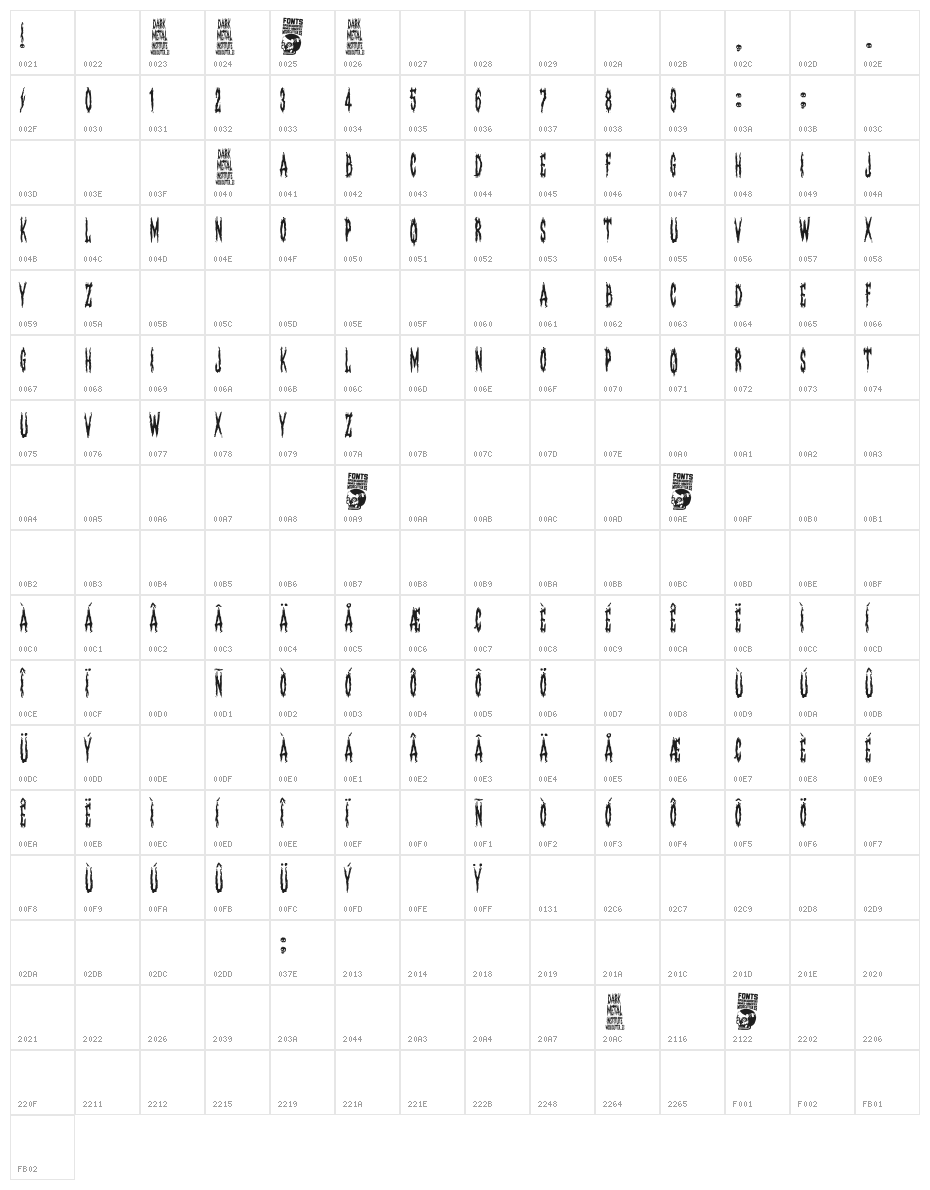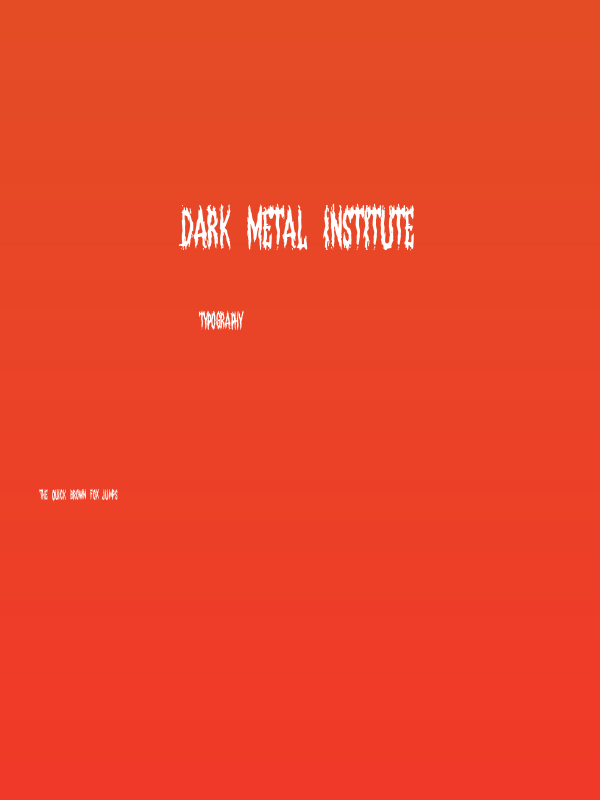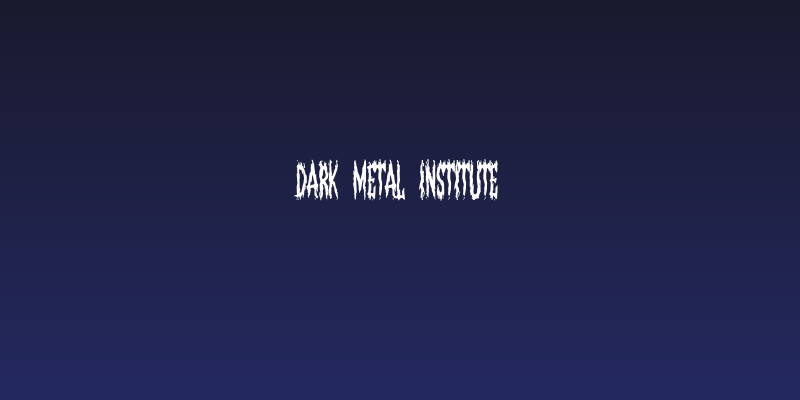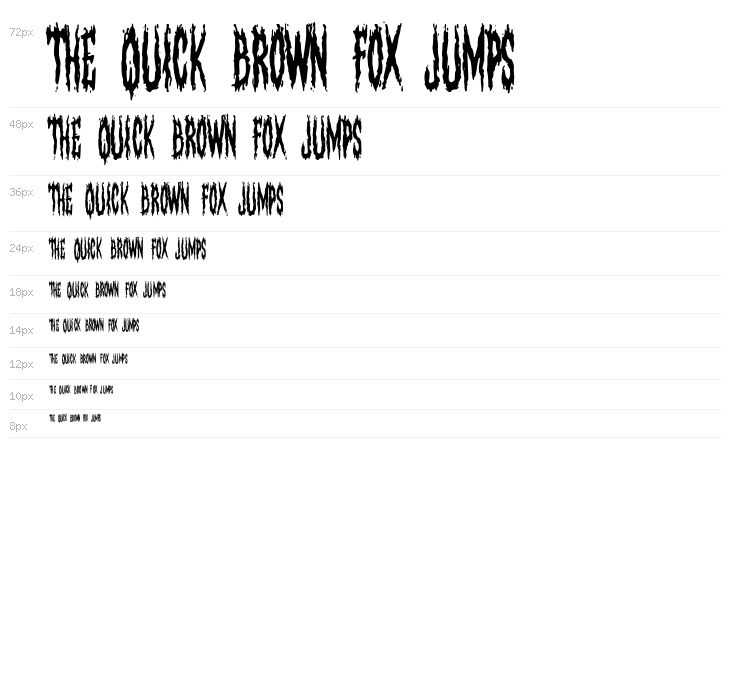
Dark Metal Institute Font
Dark Metal Institute Description
This font features a rugged, distressed appearance with jagged edges and an irregular outline, reminiscent of dripping or melting material. The uppercase and lowercase letters maintain a consistent style, emphasizing a chaotic and intense aesthetic. The numbers and special characters follow the same design, adding to the overall cohesive look. This font's unique style makes it stand out, ideal for projects that require a bold and edgy visual impact.
| Proposed Projects | Perfect for horror-themed designs, music album covers, event posters, and any project needing a bold, edgy look. |